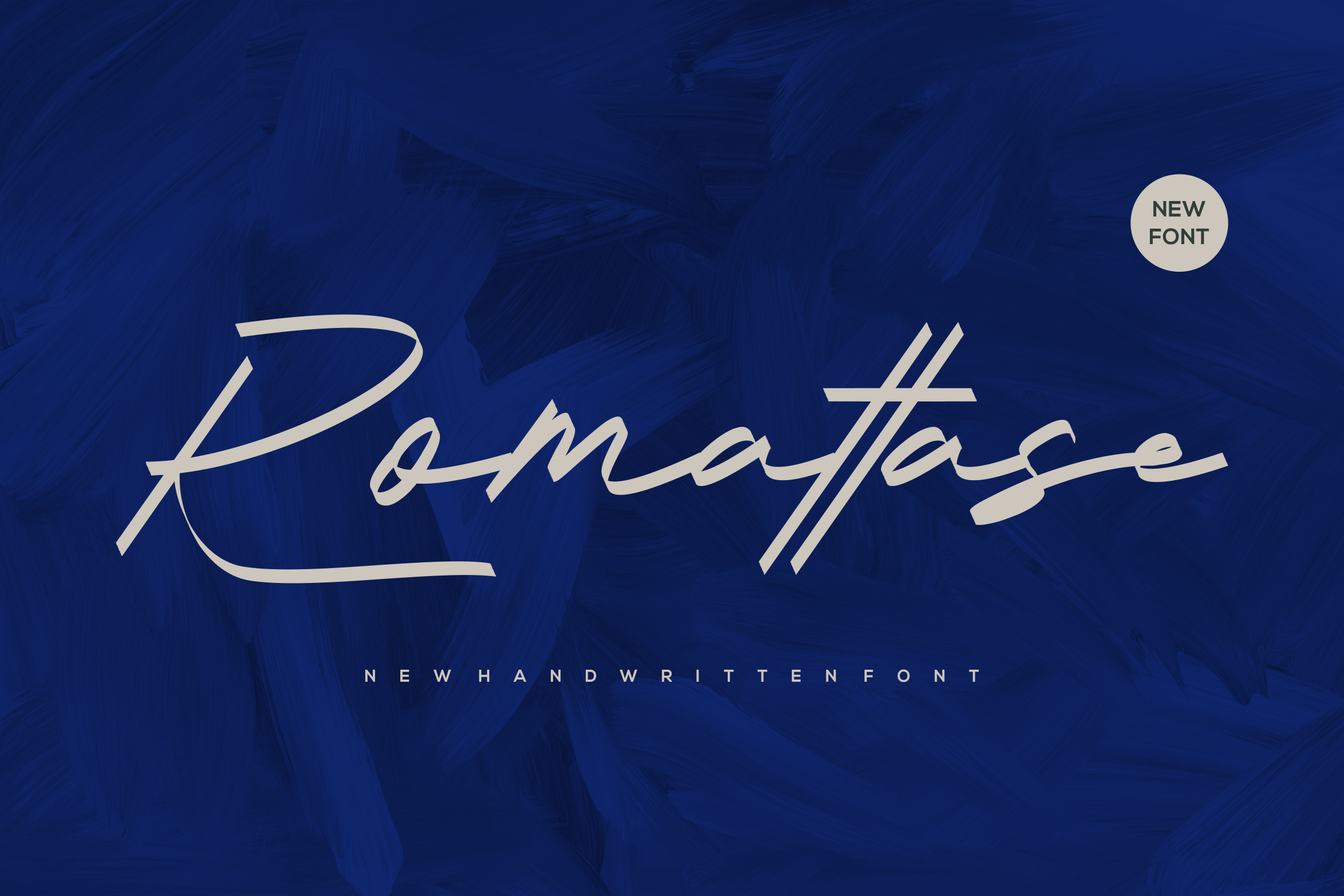
Romattase Font
Introducing our new product Romattase Font - Modern Font
Romattase Font - Modern Font is a bold and authentic display font. The font is suitable for any branding project like logo, esport, and many more. outstanding in a wide range of contexts.